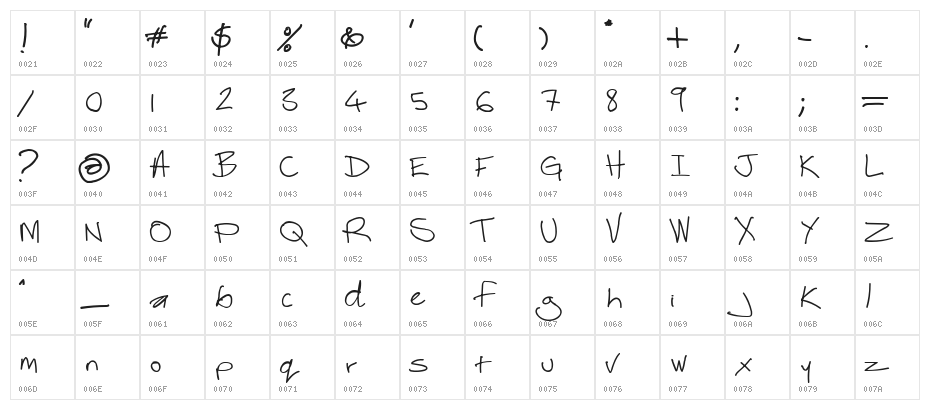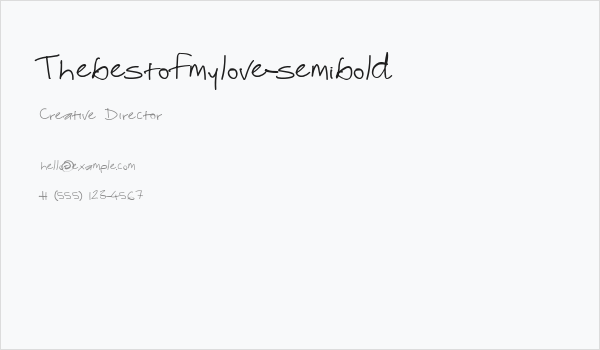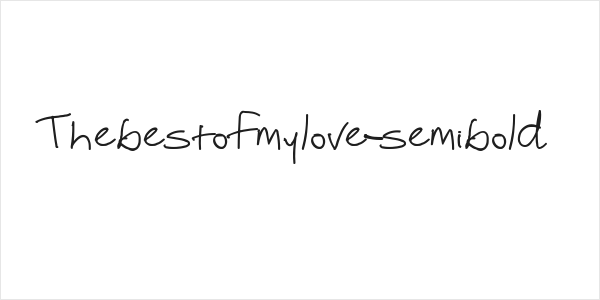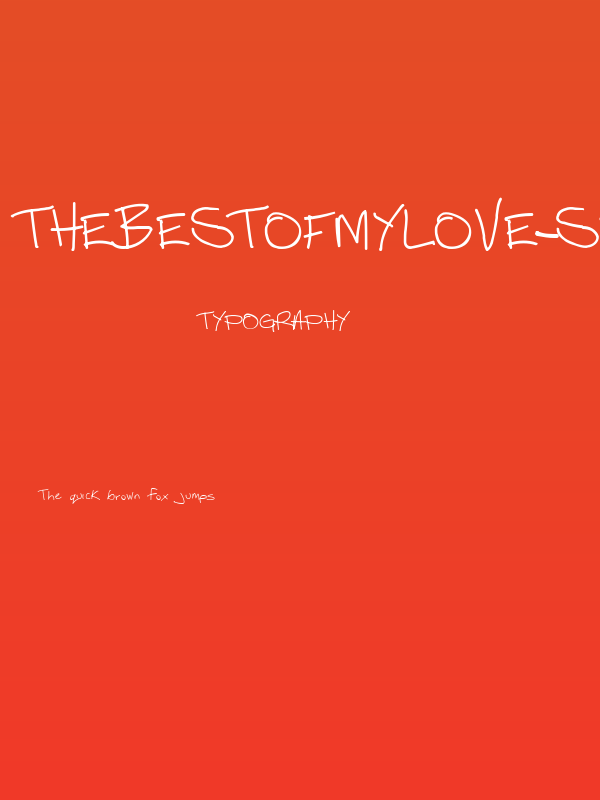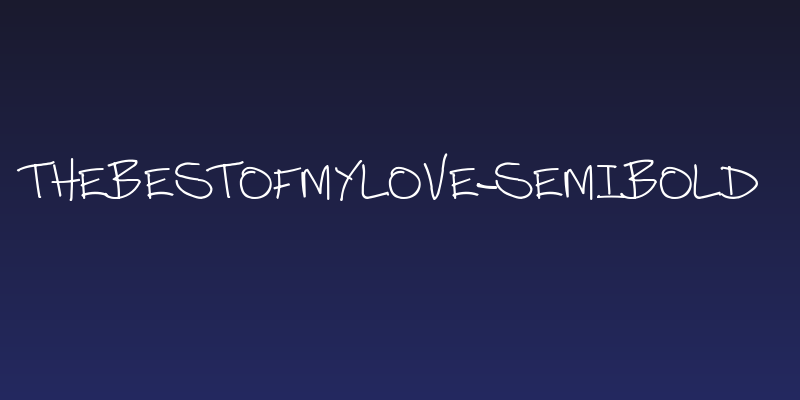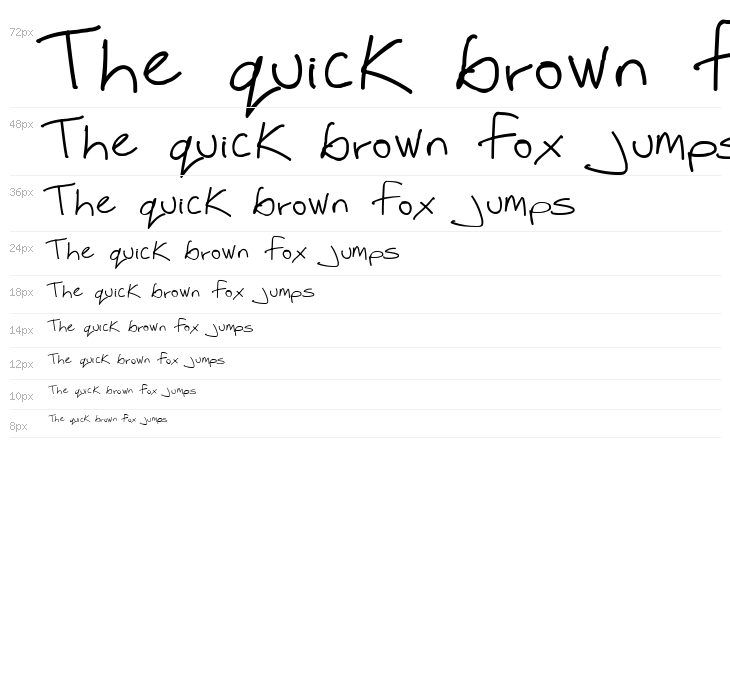
Thebestofmylove-semibold Font
Thebestofmylove-semibold Description
This font exhibits a playful and casual handwritten style, characterized by its irregular and dynamic strokes. The letters have a natural flow, with varying heights and angles that give it a lively and informal appearance. The uppercase letters are bold and slightly angular, while the lowercase letters maintain a consistent fluidity. The numbers are rounded and maintain the same playful aesthetic. Special characters are creatively integrated, adding to the font's whimsical charm. This font is ideal for projects that require a personal touch, such as greeting cards, invitations, or playful branding.
| Use Case | Headlines, Logos, Informal text |
| Proposed Projects | Greeting cards, invitations, playful branding, children's books, and casual social media graphics. |